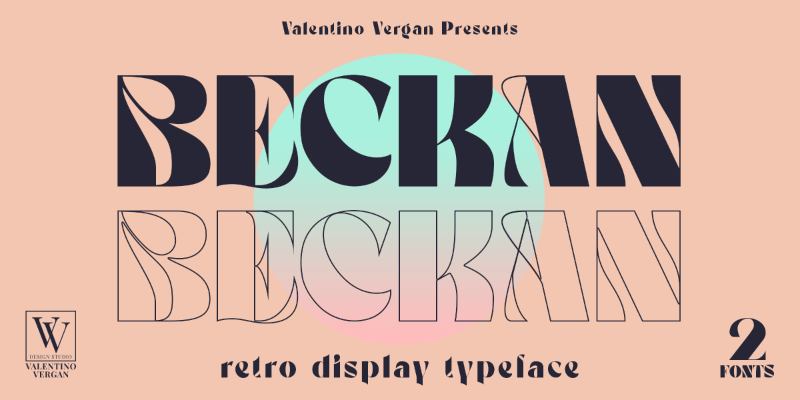
Beckan is a retro inspired typeface, which leans towards the Art Nouveau style. The Beckan typeface has a high-contrast and a thin hairline, this gives the typeface a bold and modern retro look. The Beckan typeface comes in two styles, Regular and Oblique. The Beckan typeface can be paired with a minimal sans serif or light script font, this combination will give your next project a unique look. The Beckan typeface is very versatile and can cover a wide range of project such as: branding, mastheads, magazines, logos, facebook banners, Instagram posts, websites, blog posts, pull quotes, product packaging, advertisements and much more. This font is free for PERSONAL USE. If you need more information you can contact me at: valentinovergan@gmail.com _____ FOR PERSONAL AND COMMERCIAL USE, please download here: https://crmrkt.com/oWVdzV https://www.creativefabrica.com/product/beckan/ref/2320189/ https://www.myfonts.com/fonts/valentino-vergan/beckan/ _____ My work: https://www.behance.net/valentinovergan More... |